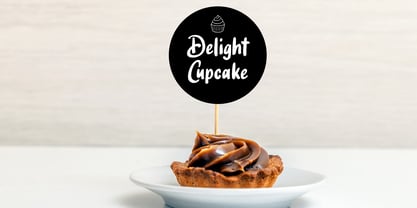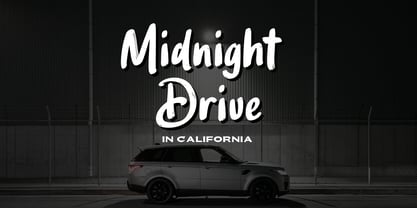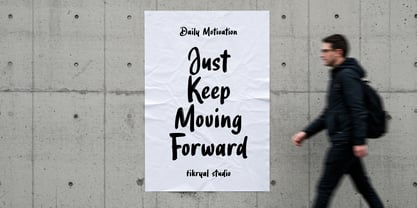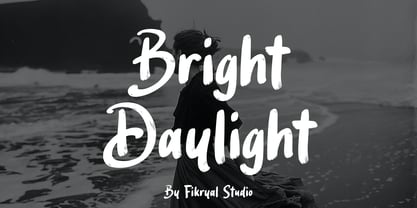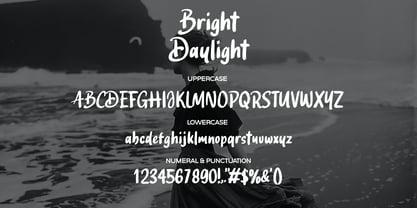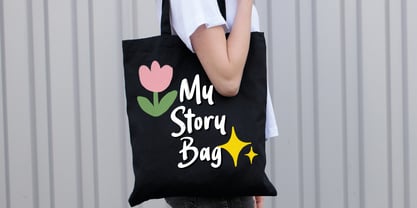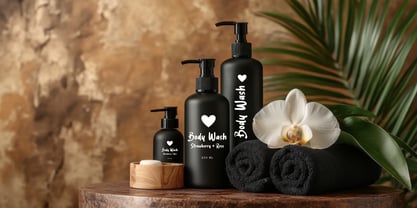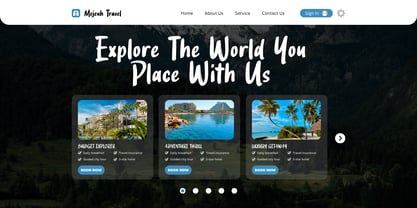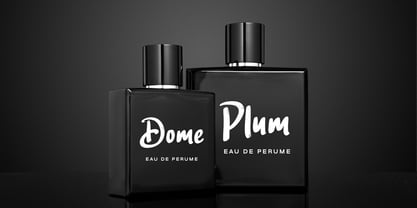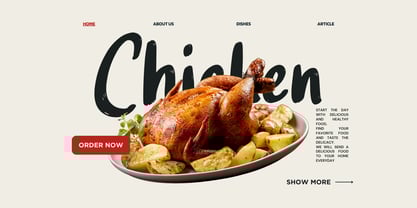
Bright Daylight
by Fikryal
The Bright Daylight Font Family was designed by Muhammad Fikry and published by Fikryal. Bright Daylight contains 1 styles. More about this family
Bright Daylight is a handmade brush font that captures the energy of real brush strokes with a bold, expressive personality. Designed to bring authenticity and character to your projects, this font perfectly blends natural texture and modern style — making it ideal for logo design, branding, packaging, posters, and social media visuals. Every letter was carefully crafted to give a handwritten, organic feel, adding life and motion to your text. Whether you’re working on a creative campaign, fashion branding, or artistic typography, Bright Daylight makes your work stand out with confidence and style. ✨ Font Features: Uppercase & lowercase letters Numbers & punctuation Multilingual support Authentic hand-brush texture 🎨 Perfect For: Logo & branding design Product packaging Poster & advertising design Quotes & social media posts Streetwear & lifestyle projects 💬 Why You’ll Love It: Bright Daylight isn’t just a font — it’s an expression of creativity and boldness. With its energetic brush texture and dynamic flow, it brings an authentic handwritten look that feels both modern and artistic. Use it to create powerful headlines, memorable brand names, or expressive typography that stands out anywhere. Thank you 🙂
Designers: Muhammad Fikry
Foundry: Fikryal